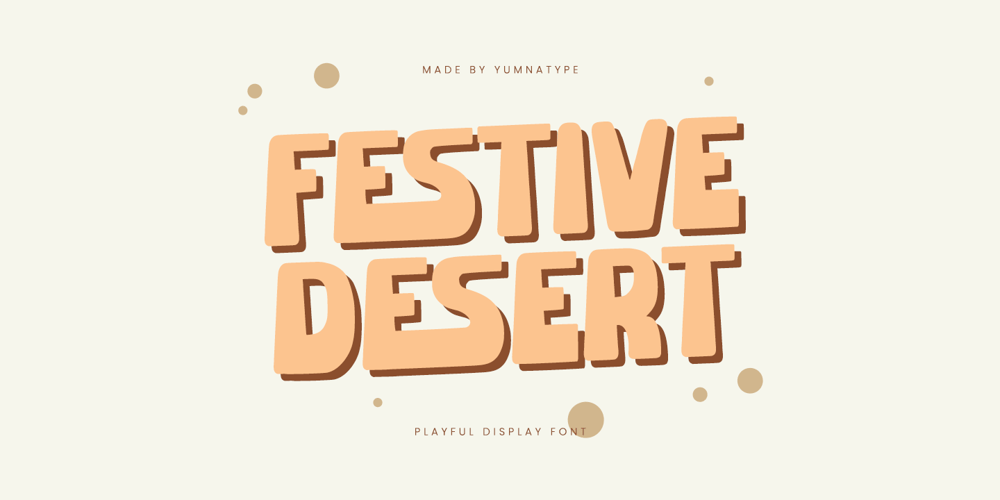
Festive Desert Font Family was designed by Donis Miftahudin and published by Yumna Type. Festive Desert contains 1 styles and family package options. Satisfy your design cravings with Festive Dessert, a delectable display font that brings a playful twist to any project. Each letter of Festive Dessert is infused with charm and character, featuring rounded shapes that evoke the cozy feeling of homemade treats. The thick weight of the font adds to its bold presence, ensuring that your message stands out with confidence and clarity. With its low contrast, Festive Dessert maintains a harmonious balance between the thick strokes and rounded forms, creating a cohesive and inviting appearance. In addition, enjoy the features here.Features: Ligatures Multilingual Supports PUA Encoded Numerals and Punctuations Festive Dessert fits in headlines, logos, posters, flyers, branding materials, greeting cards, print media, editorial layouts, and many more designs. Find out more ways to use this font by taking a look at the font preview.Thanks for purchasing our fonts. Hopefully, you have a great time using our font. Feel free to contact us anytime for further information or when you have trouble with the font. Thanks a lot and happy designing.